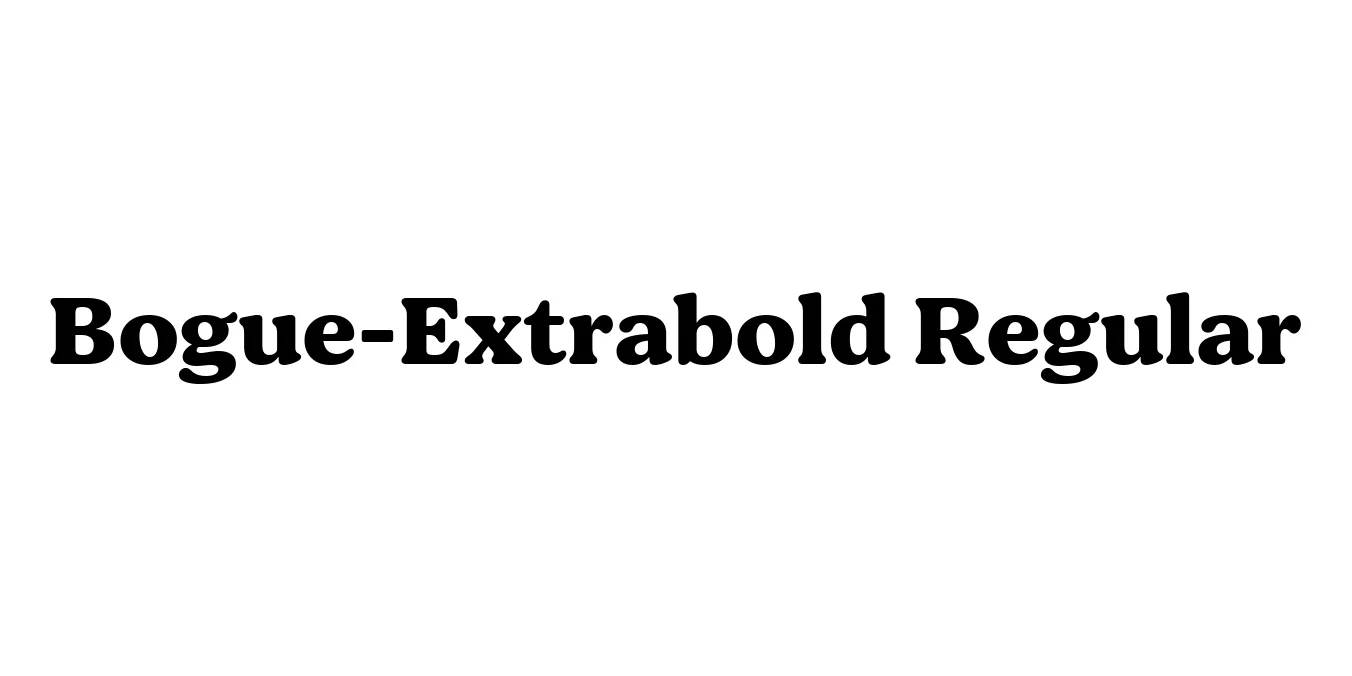
Bogue-Extrabold Regular
Designed by Mika Melvas
| Category | Slab Serif |
| Designer | Mika Melvas |
Bogue-Extrabold Regular is a standout member of the Bogue typeface family, masterfully crafted by Mika Melvas. This font bridges the gap between rugged industrial slab serifs and soft, organic brush-inspired lettering. Its heavy weight and thick slab serifs are tempered by rounded corners and a subtle warmth, making it one of the most approachable yet powerful display fonts available for modern designers.
The Extrabold weight is specifically optimized for high-visibility applications where a strong presence is required. It features a generous x-height and robust construction that maintains excellent legibility even at large scales. Whether used for digital interfaces or physical print media, Bogue-Extrabold brings a unique blend of vintage character and contemporary precision to any typographic project.
Bogue-Extrabold Regular Best Uses
Creates high-impact, memorable brand marks with a friendly yet professional tone.
Perfect for massive, attention-grabbing titles in editorial layouts and magazines.
Excellent for product labels that require a sturdy and distinct shelf presence.
Highly effective for event posters and advertisements that need to communicate strength.